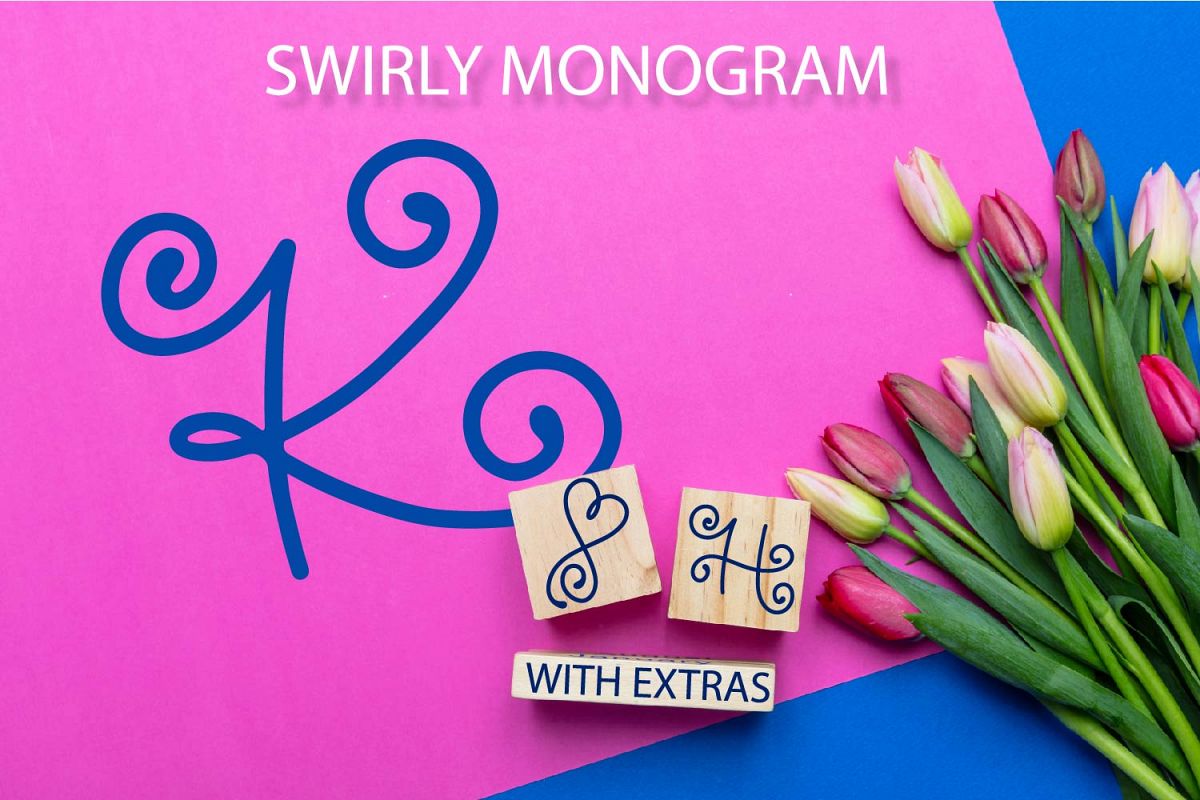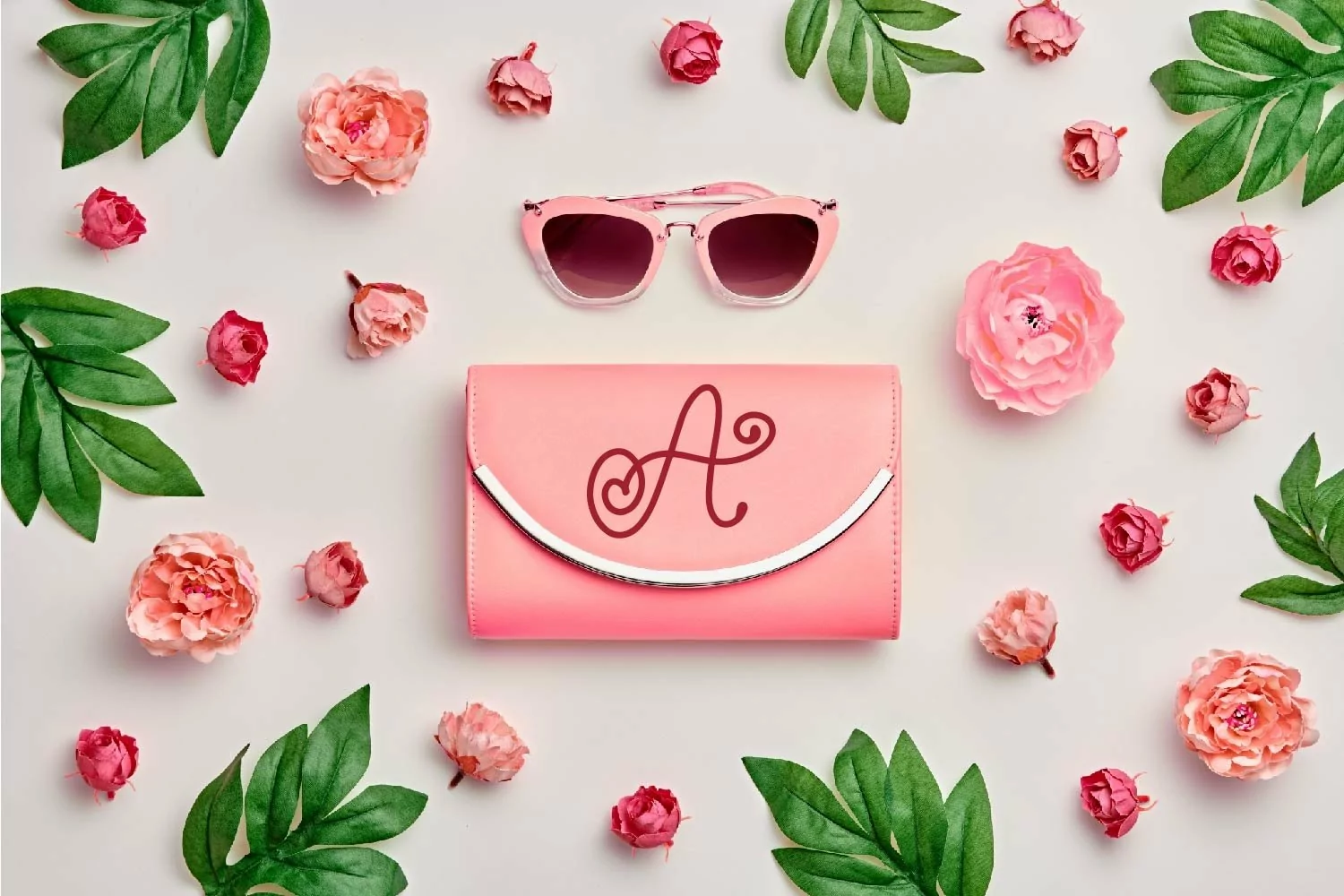
Swirly Monogram - With Swooshy Monoline Extras
The uppercase set of this font is the monogram letters,
while the lowercase set holds the extra drawn bits. :)